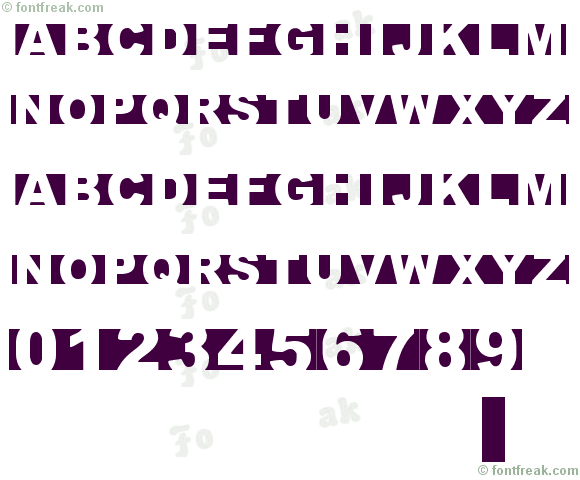
Crimescene Afterimage
Crimescene Afterimage by Anke Art is a striking display font that falls within the decorative category, designed to make a bold statement in any project. This typeface features a unique blend of heavy stroke weights and unexpected contrasts, creating an eye-catching visual impact. The spacing is thoughtfully crafted to enhance readability while maintaining a sense of intrigue, making it perfect for attention-grabbing headlines.
The font is characterized by its dynamic, fragmented letters that evoke a sense of urgency and drama, reminiscent of a crime scene aesthetic. This makes Crimescene Afterimage particularly suitable for use in movie posters, especially thrillers or crime dramas, where it can effectively convey suspense and excitement. Additionally, its distinctive style lends itself well to event flyers, especially for themed parties or art exhibitions, where a creative edge is desired. Restaurants looking to add a modern flair to their menus will also find this font an excellent choice, as it can elevate the dining experience with its unique personality. Graphic designers and content creators will appreciate its versatility for various digital and print applications, ensuring that their work stands out in a crowded market.